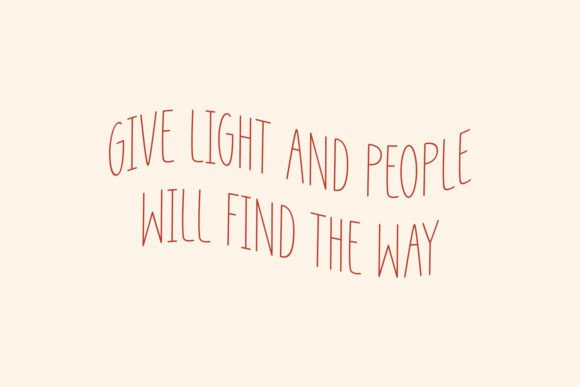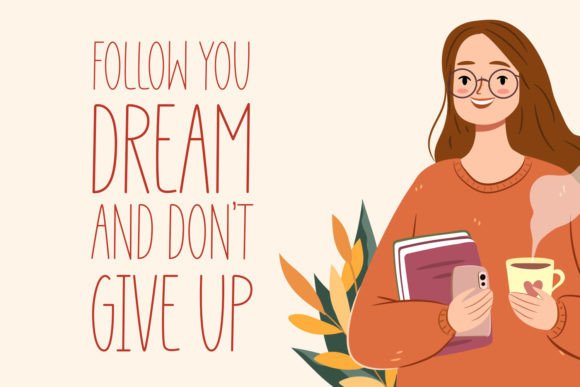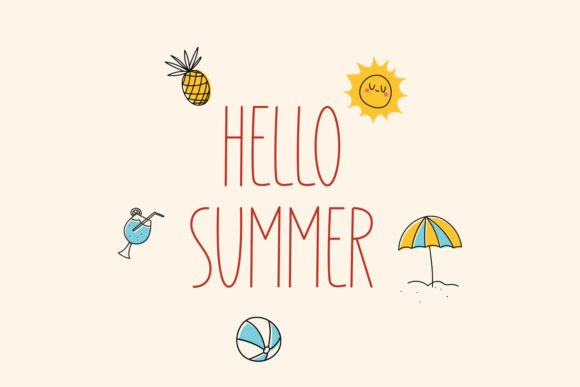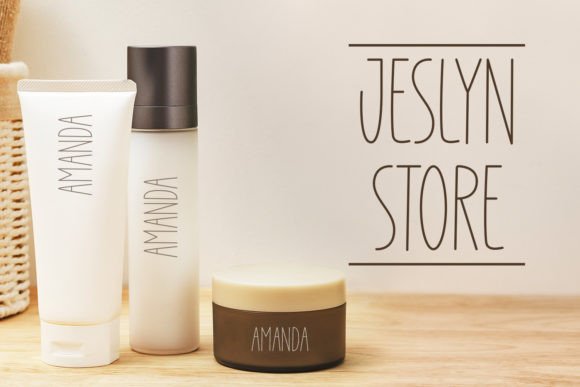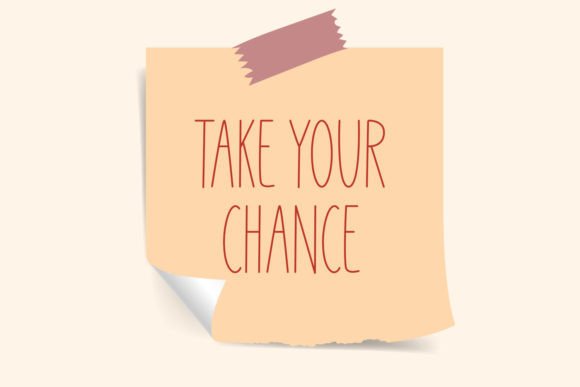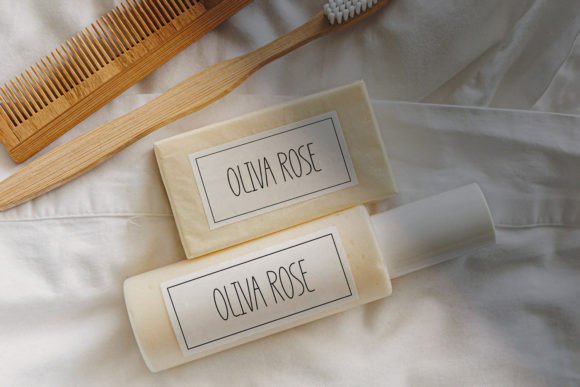
The Sweet Charm of Apple Cream Font: A Designer’s Delight
I still remember the time I was working on a wedding invitation project, and I just couldn’t find the perfect font to capture the romantic and whimsical feel my client was looking for. I scrolled through page after page of Google results, tried out font after font, but nothing seemed quite right. That was until I stumbled upon Apple Cream Font. ✨ It was love at first sight! The sweet, delicate handwritten strokes and dainty feel instantly won me over. In this article, I’ll share my experience with Apple Cream Font, its features, and how to make the most of it in your designs.
An Honest Review of Apple Cream Font
- ✨ Sweet and delicate handwritten feel: Apple Cream Font is perfect for designs that require a romantic, personalized touch.
- ✅ Ease of use: The font is easy to read and works well in various design applications.
- 🎉 Versatility: It’s ideal for wedding invitations, cards, and other designs that need a touch of whimsy.
While Apple Cream Font is a beautiful font, there are a few things to keep in mind: 🤔
- ⚠️ Limited use in bold or large sizes: The font’s delicate nature means it may not be the best choice for bold or large text.
- ⚠️ Some letters may require manual kerning: As with any handwritten font, some letters may need manual kerning for optimal results.
The Story Behind Apple Cream Font
Apple Cream Font was designed with love and care by a talented type designer who wanted to create a font that would capture the essence of sweet, handwritten notes. The designer’s inspiration came from vintage letters, romantic gestures, and the beauty of everyday moments. The result is a font that’s both delicate and joyful, perfect for adding a personal touch to your designs.
Q: What is Apple Cream Font best used for?
A: Apple Cream Font is ideal for designs that require a romantic, personalized touch, such as wedding invitations, cards, and other stationery.
Q: Is Apple Cream Font easy to read?
A: Yes, Apple Cream Font is generally easy to read, making it perfect for body text and other designs where readability is important.
Q: Can I use Apple Cream Font in digital designs?
A: Absolutely! Apple Cream Font works well in digital designs, such as social media graphics, blog posts, and email newsletters.